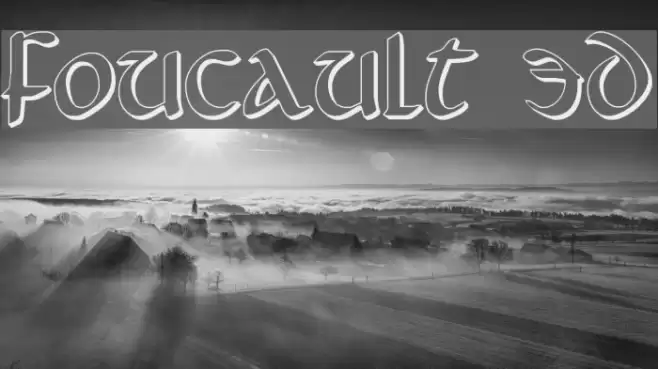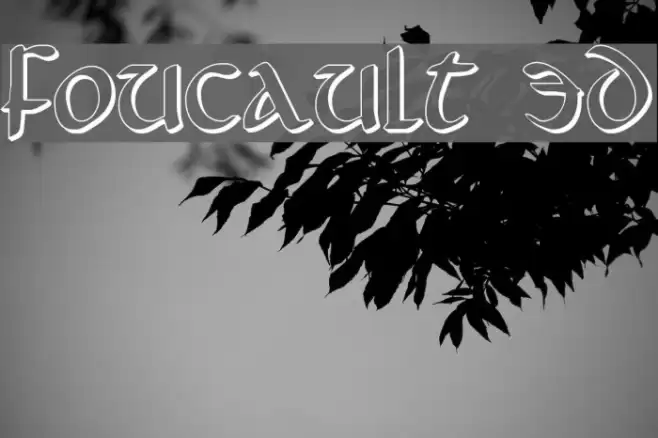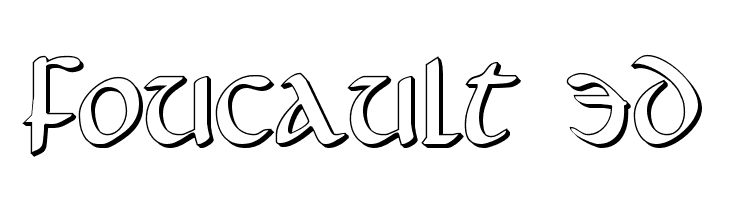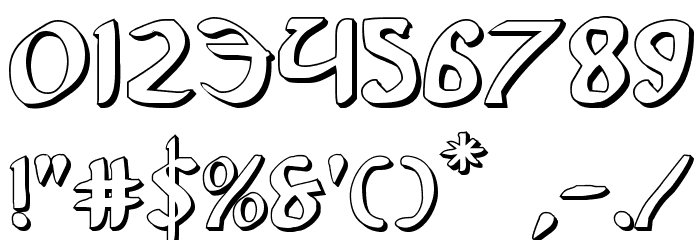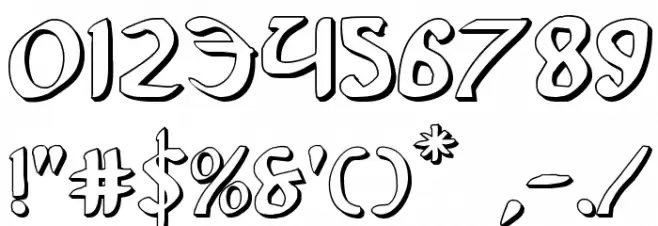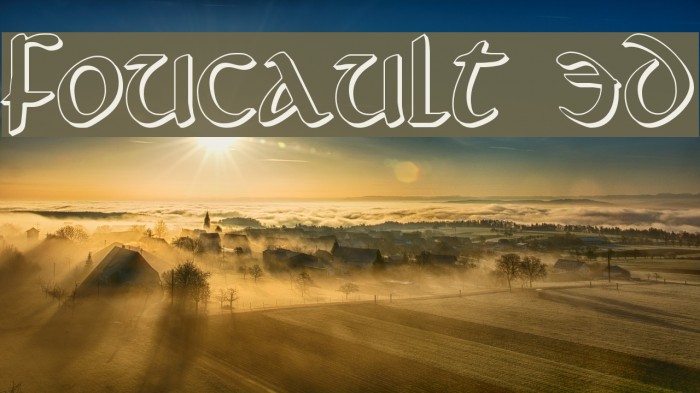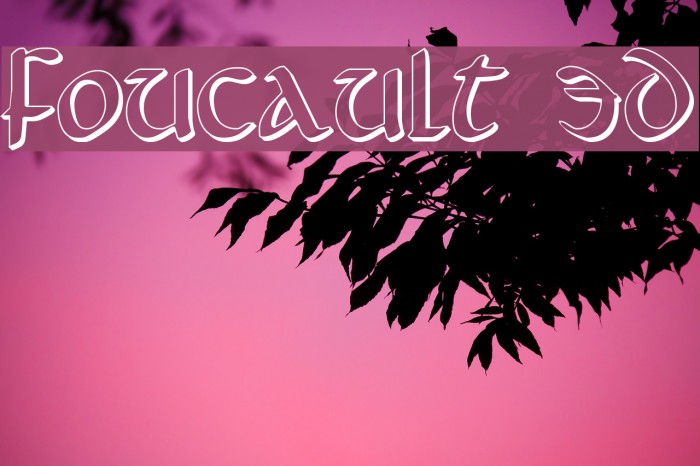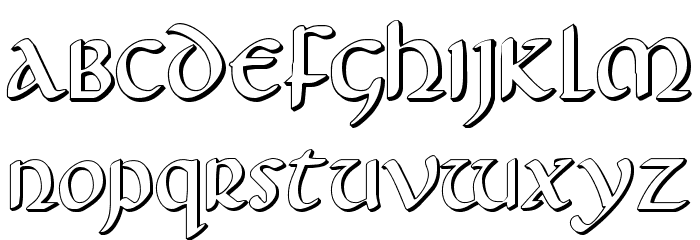
Foucault 3D Font
Foucault 3D Description
This font features a bold, three-dimensional appearance with a distinct shadow effect that gives each character a sense of depth and volume. The letters are crafted with a smooth, flowing style that combines elements of both script and serif fonts, creating a unique and eye-catching design. The uppercase and lowercase letters maintain a consistent style, with rounded edges and a slight slant that adds to the dynamic feel of the font. Numbers and special characters are designed to match the overall aesthetic, ensuring a cohesive look across all text. The font's playful yet sophisticated style makes it suitable for a variety of creative projects.
A bold, 3D font with a shadow effect and a blend of script and serif styles from Gothic fonts.